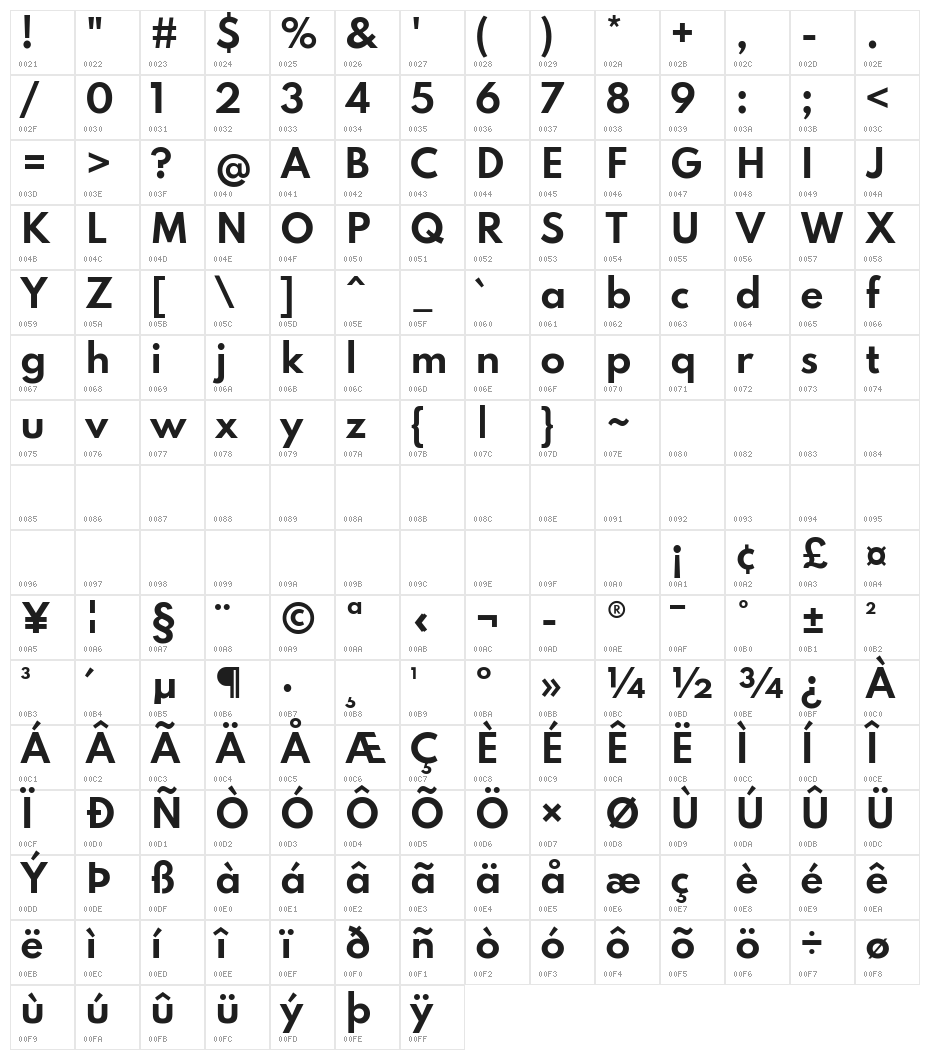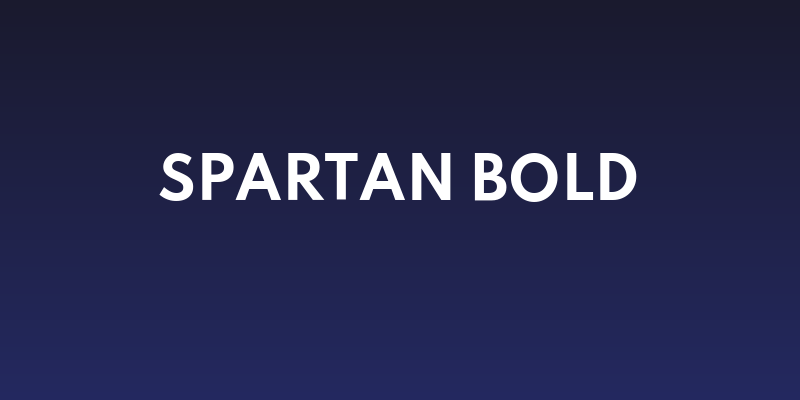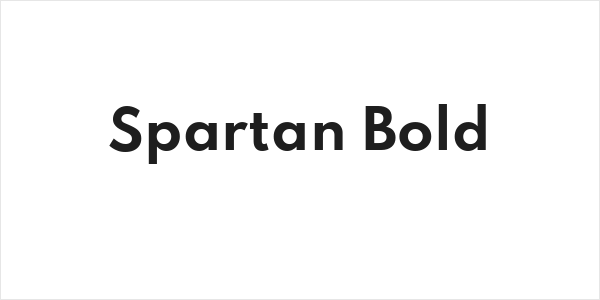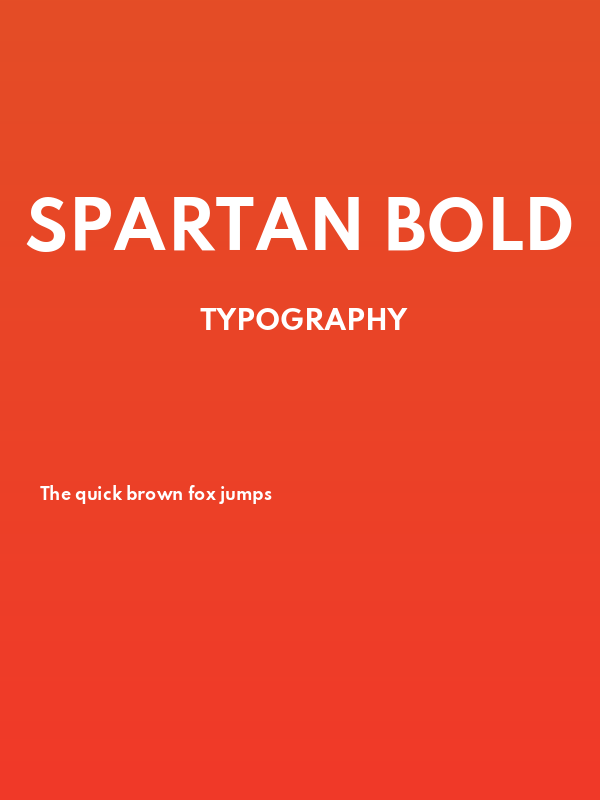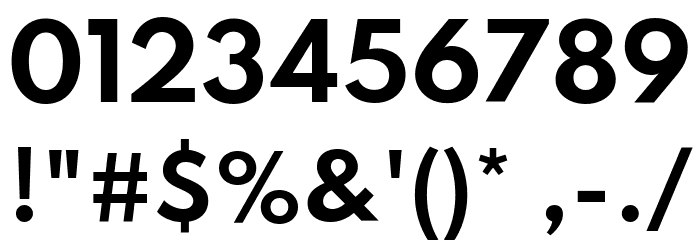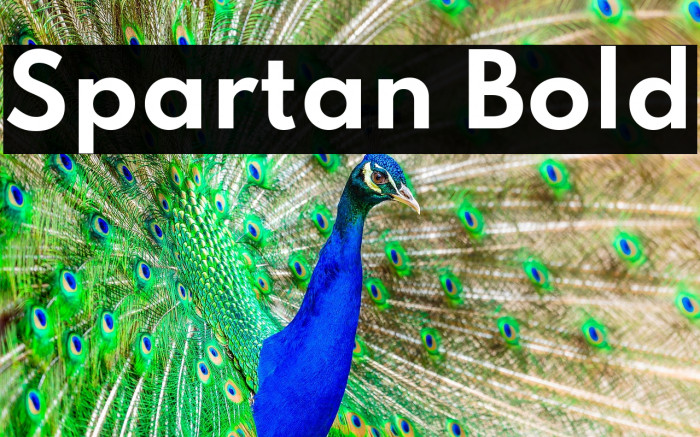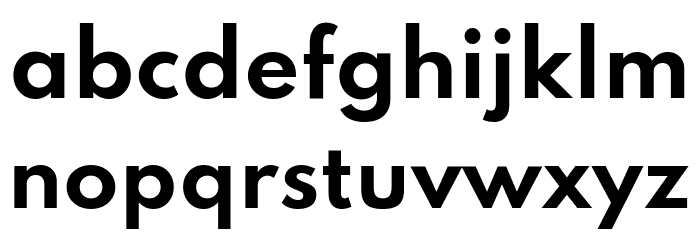
Spartan Bold Font
Spartan Bold Description
This typeface features a bold and clean sans-serif design, characterized by its geometric shapes and uniform stroke widths. The uppercase letters are strong and assertive, while the lowercase letters maintain a consistent and harmonious appearance. The numerals are clear and easily readable, making them suitable for various applications. The special characters are well-integrated, ensuring a cohesive look across all text elements. This font's simplicity and clarity make it versatile for both digital and print media.
| Use Case | Headlines, Logos, Digital interfaces |
| Proposed Projects | Ideal for branding, advertising, headlines, and digital interfaces where clarity and impact are essential. |